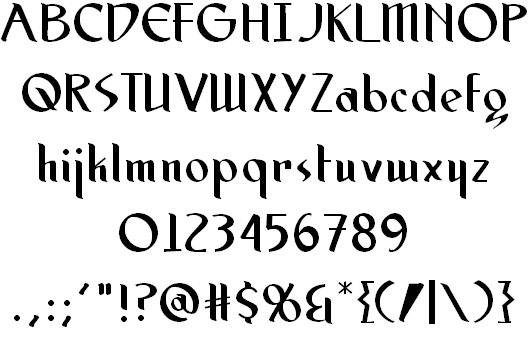
Free Spirit Medium Font
Take a look at this dazzling free spirit medium font. This is a downloadable typeface file brought to you by Font Space. This is absolutely fancy font so you can easily make world-class designs.